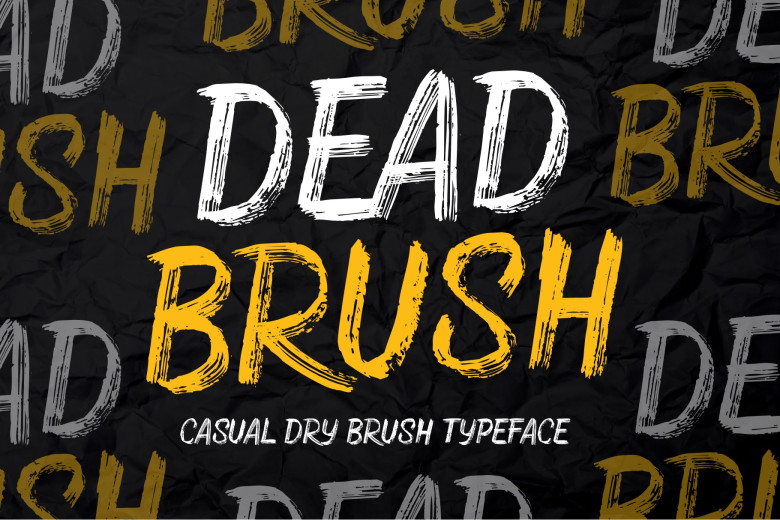
Dead Brush Font
Dead Brush font is an exquisite and classic handwritten brush font, ideal for creating stunning designs, branding materials or quotes that stand out from the crowd. Each letter boasts its own distinct and elegant aesthetic that can really set your design apart!